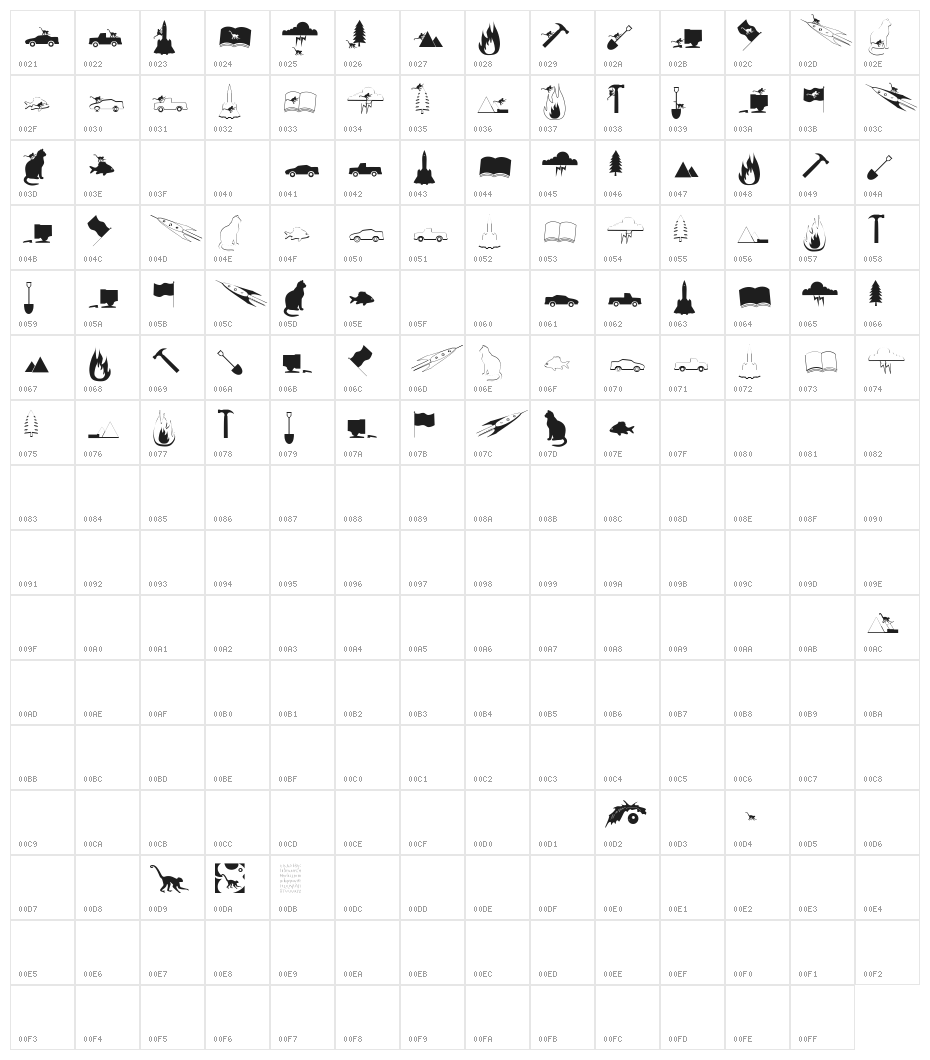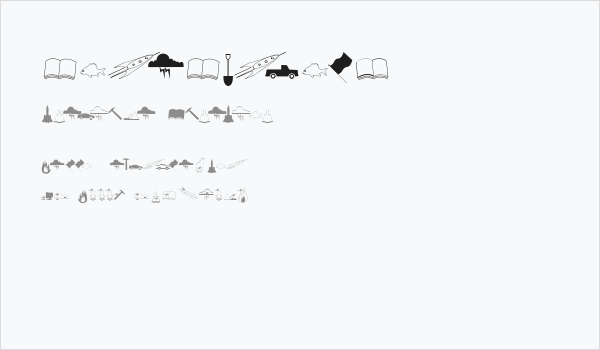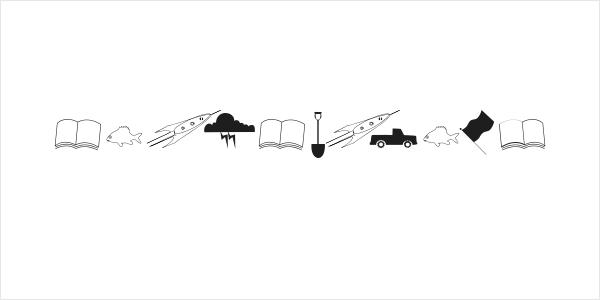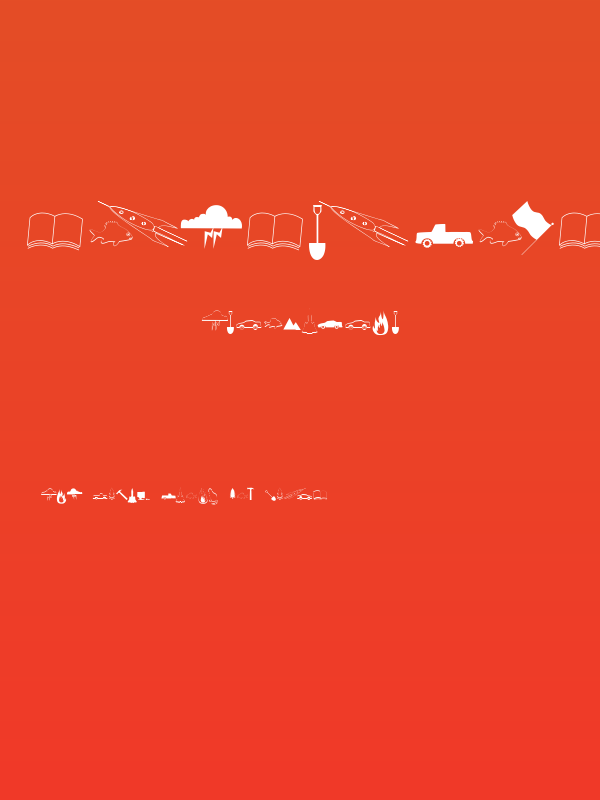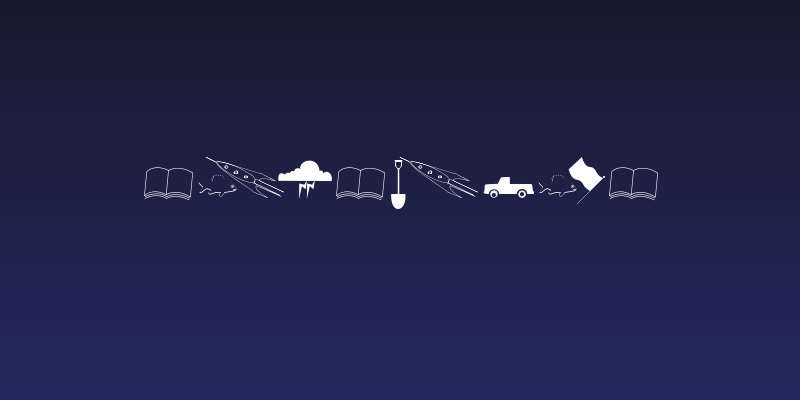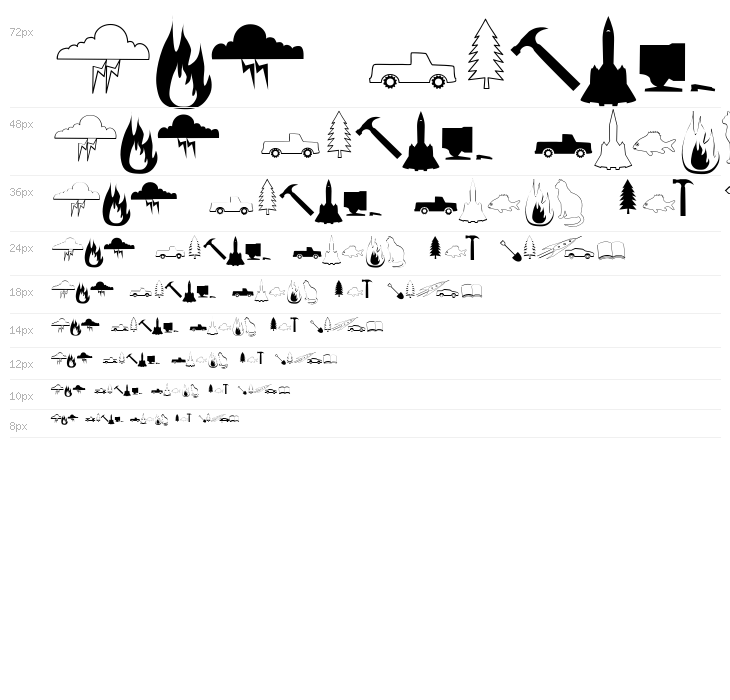
SomeSymbols Font
SomeSymbols Description
A pictogram-style dingbat set featuring simple, bold line and filled icons such as vehicles, animals, books, clouds, trees, mountains, fire, tools, and rockets. Each symbol is highly recognizable, with minimal detail and a playful, illustrative approach.
| Overall Style | Decorative, Playful, Modern |
| Use Case | Icons, Decorative elements, Themed illustrations |
| Proposed Projects | Infographics, educational materials, signage, children's books, themed event graphics. |